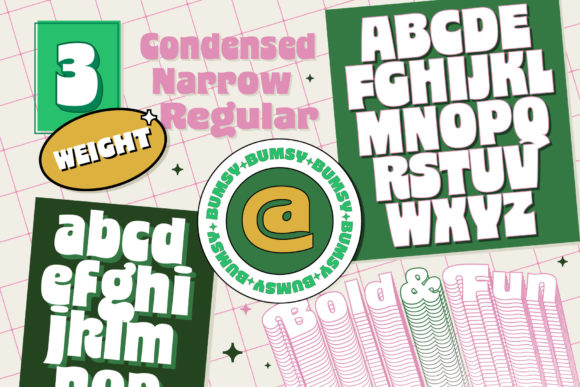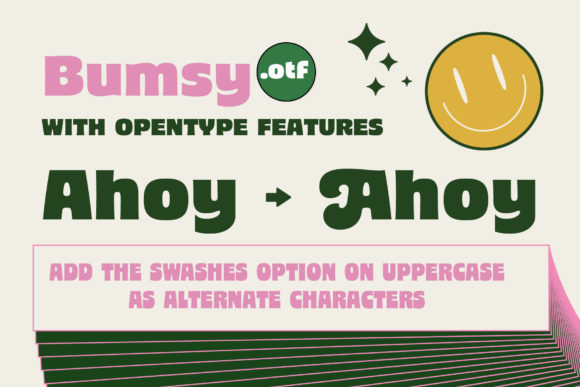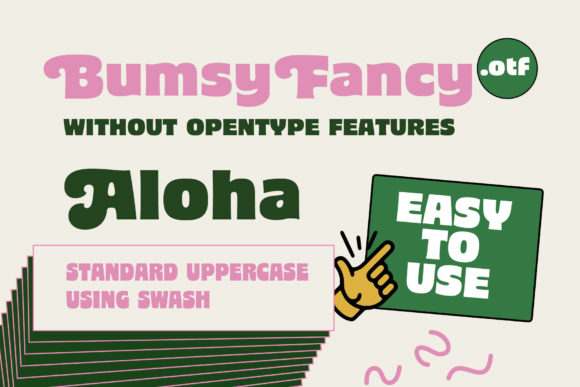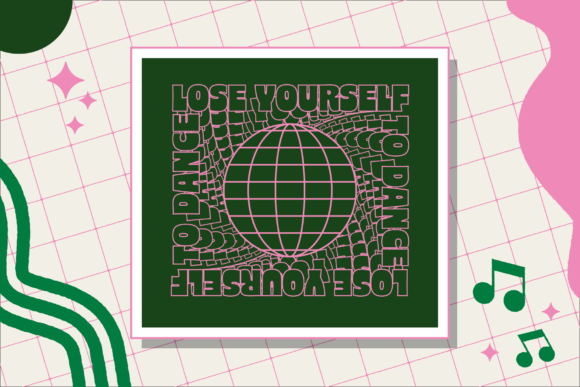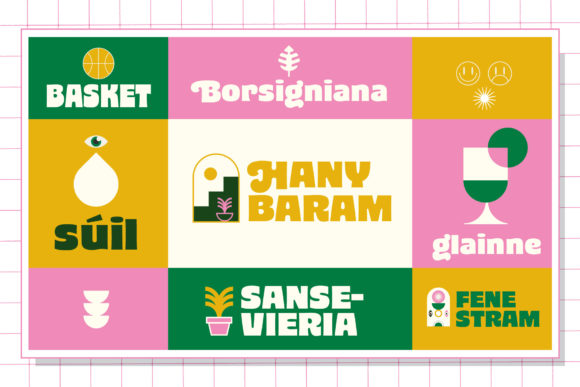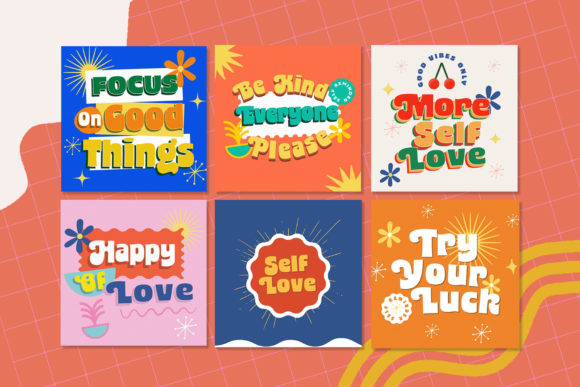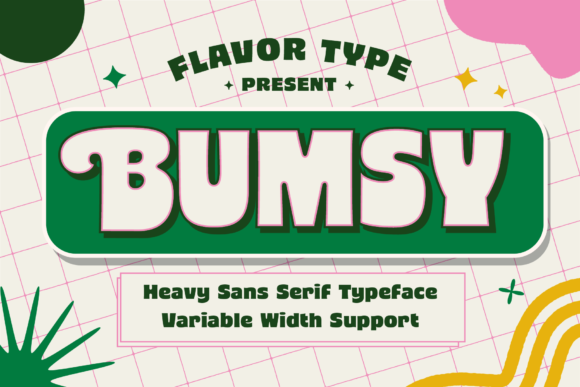
Bumsy Font: The Ultimate Display Font for Designers and Crafters
Are you tired of using the same old fonts for your designs and crafts? Look no further than Bumsy Font, a cool, fun, and thick lettered display font that’s perfect for a variety of projects. Whether you’re a designer, crafter, or simply someone who loves to get creative, Bumsy Font is sure to become your new go-to font.
What is Bumsy Font?
Bumsy Font is a display font that’s designed to make a statement. Its thick, bold letters are perfect for creating eye-catching headlines, titles, and text that demands attention. But what really sets Bumsy Font apart is its fun and playful vibe. This font is not your average, run-of-the-mill font – it’s a font that’s designed to add a touch of personality and whimsy to your designs.
What Can I Use Bumsy Font For?
The possibilities are endless when it comes to using Bumsy Font. Here are just a few ideas to get you started:
• Crafts: Bumsy Font is perfect for crafters who love to make their own cards, gift tags, and other paper crafts. Use it to add a personal touch to your creations and make them stand out.
• Digital Design: Bumsy Font is also great for digital designers who need a font that’s bold and eye-catching. Use it for social media graphics, blog posts, and other digital projects.
• Presentations: Add some personality to your presentations with Bumsy Font. It’s perfect for titles, headings, and other text that needs to stand out.
• Greeting Cards: Bumsy Font is a great choice for making greeting cards, whether you’re making them for special occasions or just for fun.
Why You’ll Love Bumsy Font
So why should you choose Bumsy Font for your next project? Here are just a few reasons why:
• It’s Versatile: Bumsy Font can be used for a wide range of projects, from crafts to digital design.
• It’s Easy to Read: Despite its bold and playful design, Bumsy Font is easy to read, even at smaller sizes.
• It’s Fun: Bumsy Font is a font that’s designed to add a touch of fun and personality to your designs. It’s the perfect choice for anyone who wants to add some whimsy to their projects.
Tips for Using Bumsy Font
Here are a few tips for getting the most out of Bumsy Font:
• Use it as a Headline Font: Bumsy Font is perfect for headlines and titles. Use it to add a bold and eye-catching touch to your designs.
• Experiment with Colors: Bumsy Font looks great in a variety of colors. Experiment with different colors and combinations to find the one that works best for your project.
• Pair it with Other Fonts: Bumsy Font can be paired with a variety of other fonts to create a unique and interesting look. Try pairing it with a simpler font for a bold and modern look.
Bumsy Font is a cool, fun, and thick lettered display font that’s perfect for designers and crafters. Its bold and playful design makes it perfect for a wide range of projects, from crafts to digital design. With its versatility, ease of use, and fun personality, Bumsy Font is sure to become your new go-to font. So why not give it a try and see what amazing projects you can create?